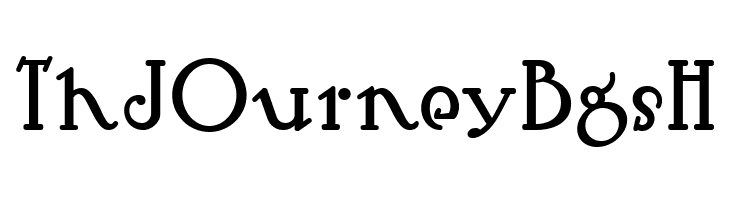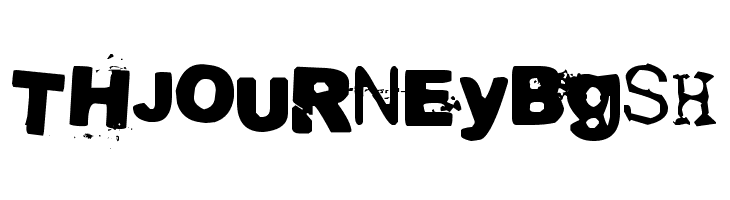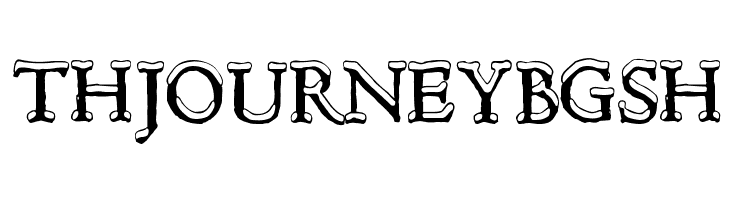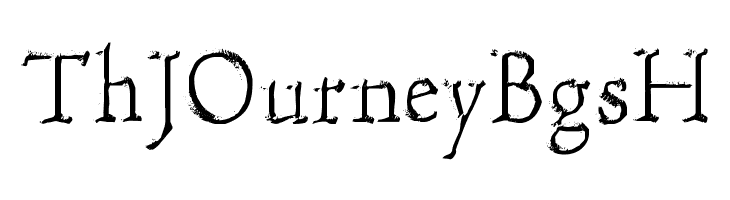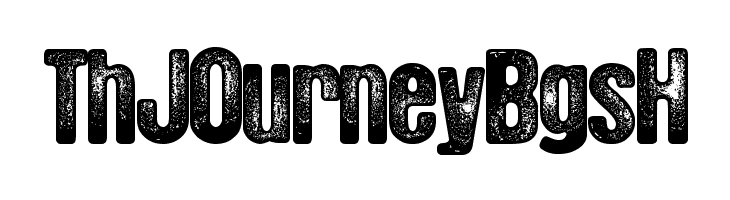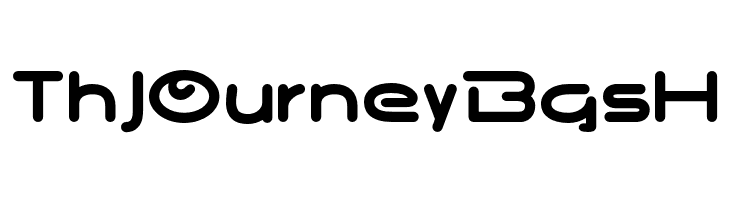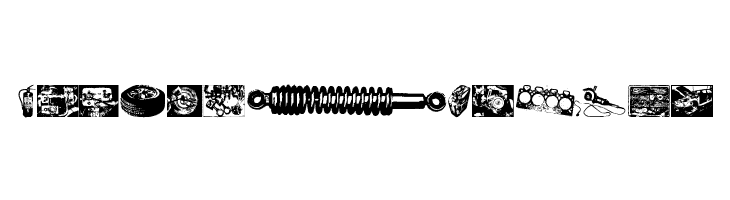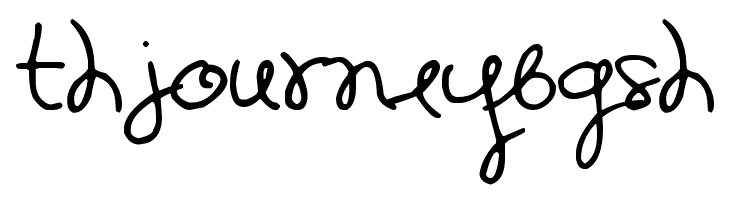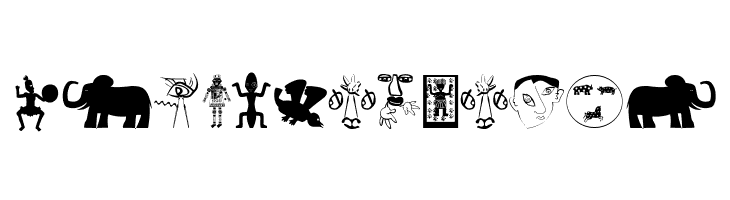
A playful, hollow, and geometric font with a mechanical and futuristic style.
A decorative serif font with whimsical curves and ornate details.
A bold, hand-drawn font with an expressive and irregular style.
A raw, expressive hand-drawn font with dynamic, irregular strokes.
A bold, geometric font with sharp angles and a strong, industrial presence.
A bold, geometric font with a futuristic and assertive style.
A bold, italicized font with a dynamic, angular design.
A bold, italicized font with sharp, angular edges and a futuristic look.
A bold, energetic handwritten font with fluid strokes and a personal touch.
A bold, three-dimensional font with vintage flair and strong shadow effects.
A bold, three-dimensional font with a vintage, shadowed style.
A bold, hand-drawn font with a rebellious, punk-inspired style.
A bold, hand-drawn font with a rebellious, punk-inspired aesthetic.
A bold, geometric font with consistent stroke widths and a modern aesthetic.
An Art Deco-inspired font with geometric shapes and elegant embellishments.
A bold, geometric font with playful and strong lines.
A bold, distressed sans-serif font with a grunge texture.
A bold, geometric font with playful and striking characters.
A bold, geometric font with a futuristic and modern style.
A bold, italicized font with sharp angles and a modern, dynamic style.
A bold, italicized font with a dynamic and futuristic style.
A bold, geometric font with a futuristic and modern design.